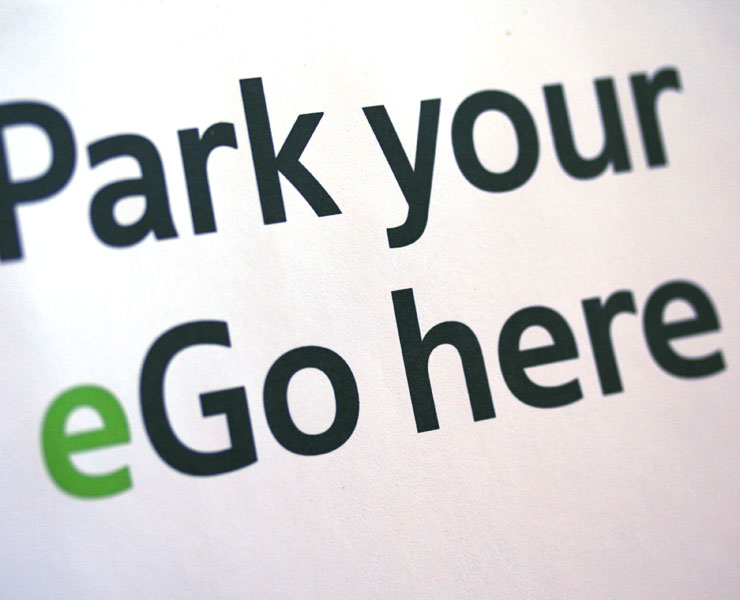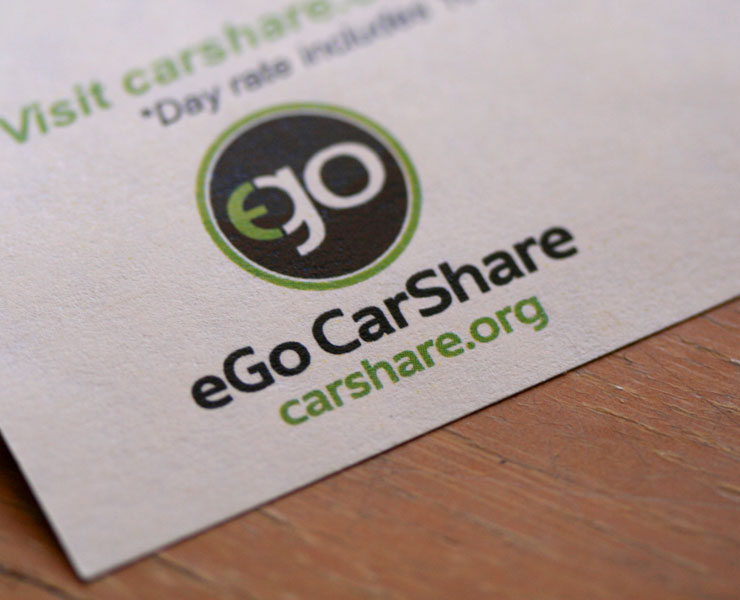
eGo
eGo is the new name for boulder carshare, a non-for-profit organisation that is dedicated to provide a green alternative to owning a car. It is expanding its fleet to the wider Denver Metro-area and therefore needed a new logotype.
It happened as voluntary collaboration with James Vierra, and in the process it was decided to design a typeface family based on the final logotype. It is a rather clean and functional design, in accordance with the carshare's philosophy.